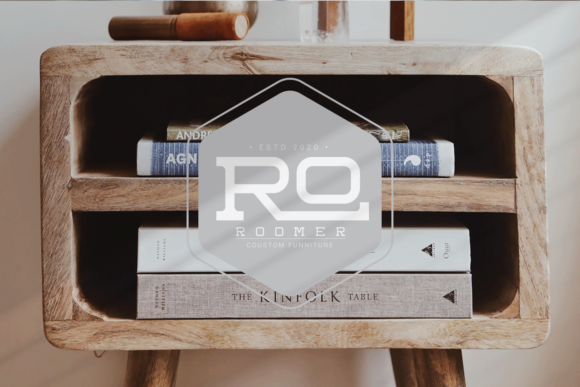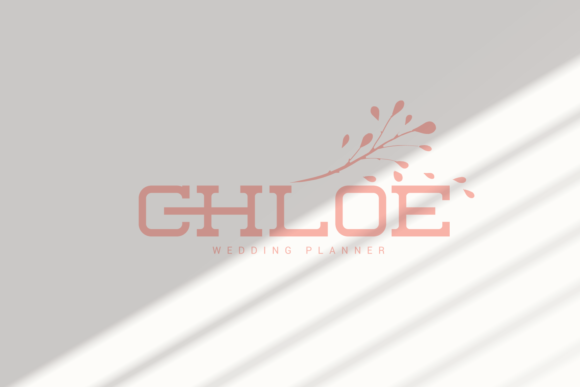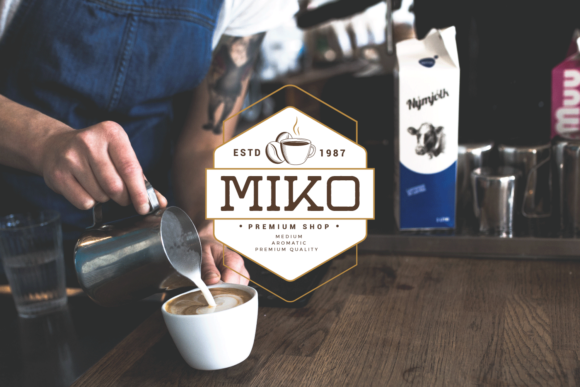
Kane Font: A Modern Slab Serif for Logo Design & Branding
About the Kane Font
Discover the charm of Kane Font. This font is a perfect blend of modern aesthetics and classic appeal. Kane is a simple and casual slab serif font with an undeniably clean feel. With its neat and beautiful arrangement of letters, this typeface will look outstanding in both formal and non-formal designs.
Kane’s clean, casual slab serif forms excel in headlines, short paragraphs, and branding applications where a touch of friendly boldness is desired. It works particularly well for logos, posters, and packaging for products aimed at a younger or more modern audience. Avoid using Kane for lengthy body text or UI elements; its slightly wider letterforms aren’t optimized for extended readability.
Pairing Kane effectively depends on the desired emphasis. For a more classic feel, consider pairing it with a clean sans-serif like Montserrat or a refined serif like Garamond. To maintain a modern aesthetic, geometric sans-serifs such as Futura or a contemporary script like Pacifico could offer pleasing contrast.
The overall personality of Kane is approachable yet confident, modern yet timeless. Its versatility allows for both playful and sophisticated applications, making it a strong choice for brands seeking a balance between approachability and visual impact.